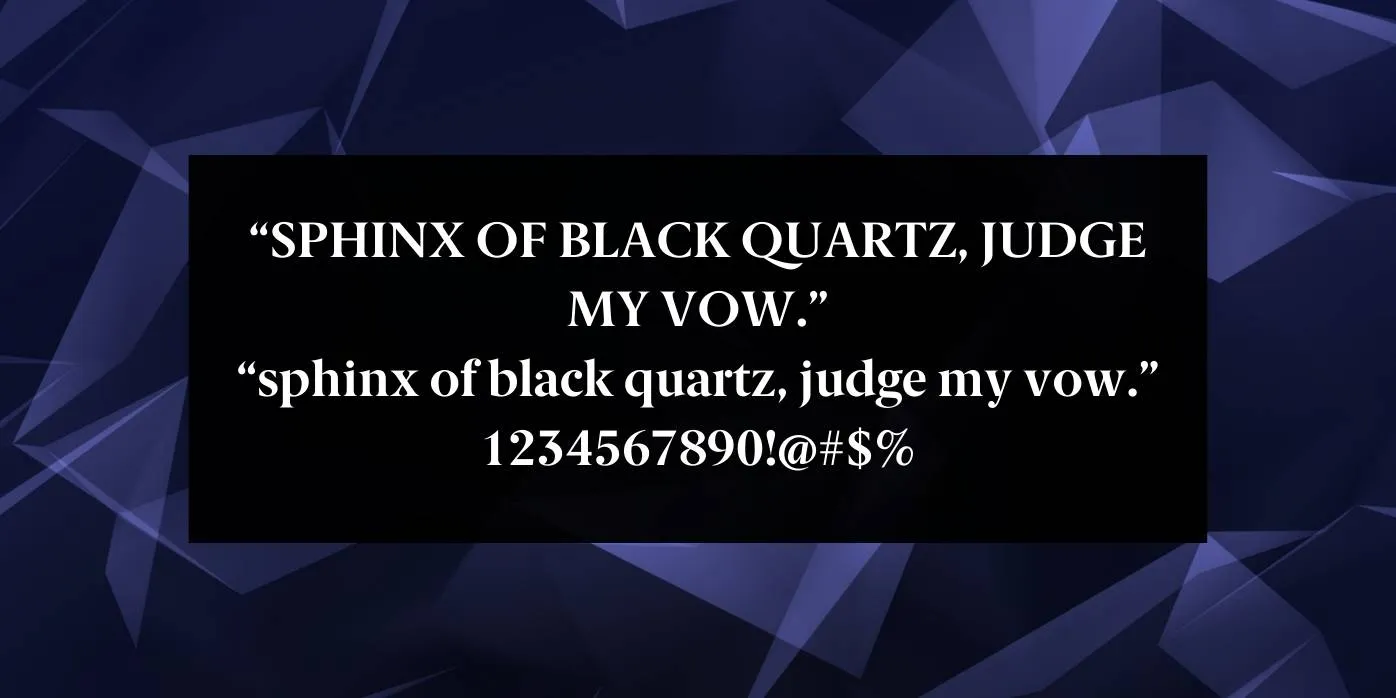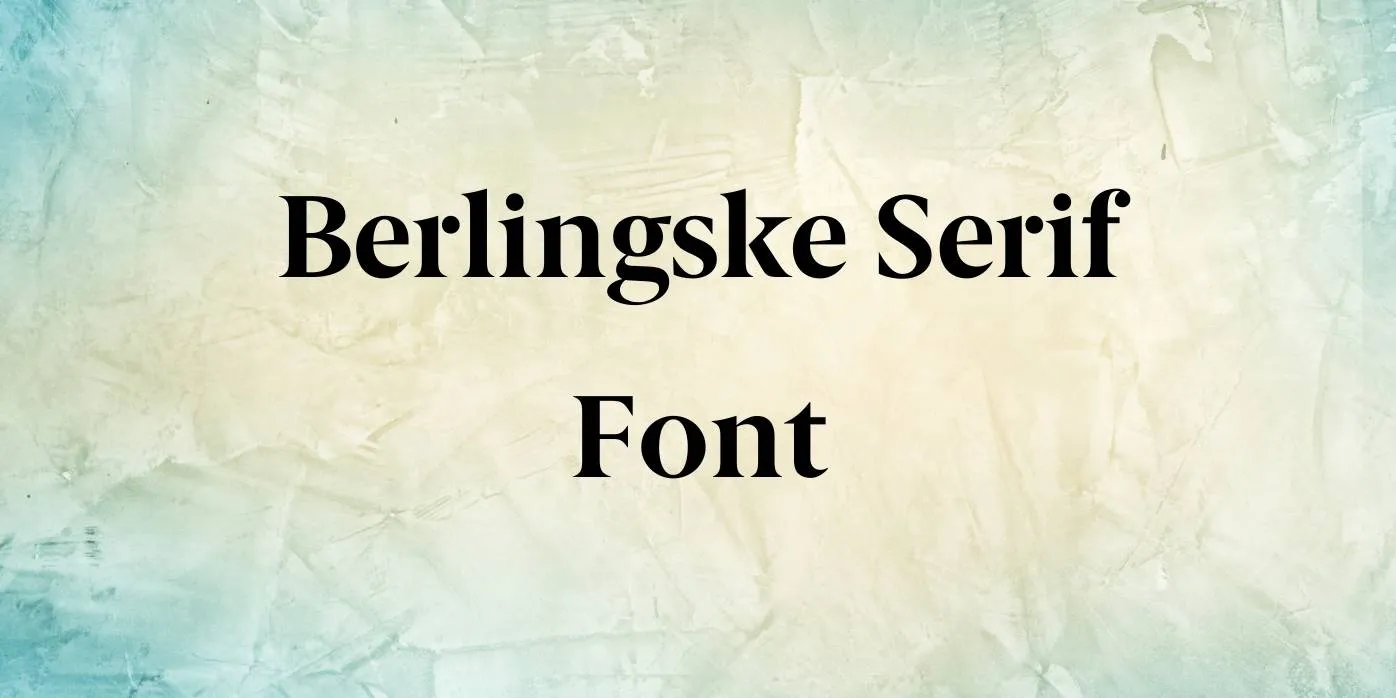
Berlingske Serif Font
Berlingske Serif Font is created to deliver a smooth and beautiful look that optimizes the visuals giving clear and sharp meaningfulness while being stylishly satisfying. With its dazzling and reliable plan, it highlights the uniqueness of the Berlingske sort. This advanced version of a classic calligraphy-built serif comes about in an adaptable sort that can be utilized for a wide extent of purposes and expressions. It is also paired with the gentona font.
Berlingske Serif was initially outlined for features but moreover capacities superbly for longer writings, such as body content for daily papers, books, and magazines that require remarkable qualities. It contains numerous figures, relative lining, as well as little caps and little caps numbers to extend its utilization. The typeface Berlingske, initially outlined by Playtype in 2010 for the Danish day-by-day Berlingske – Denmark’s most seasoned daily paper, dates back 265 a long times. The plan is wisely adjusted to convey critical modernization whereas paying tribute to a special legacy.
Usage This textual style family, Berlingske, comes in more than 229 weights and contains nearly half a million diverse glyphs. Berlingske is prominently simple and amazing to explore. It could be unique daily paper typography, where the difference in tallness between capitals and minute needs to be critical in arranging for the content to be quickly decodable. The typeface grasps a wide run-off area and subject regions from news, mold, craftsmanship, legislative issues, finances, society, culture, way of life, newscasting, captures, and so on.
FAQs! What is Berlingske serif font? This may be an outstanding typeface that has a place in the show typeface family. It has 4 weights that are normal, italic, strong, and striking italic.
The textual style generator instrument of this typeface is extremely valuable for making your eye-catching content design without downloading this tool on your pc. What text style goes well with Berlingske serif font? This text style is additionally well known for its blending capacities and it well goes with the Zag text style for making such curiously features and titles